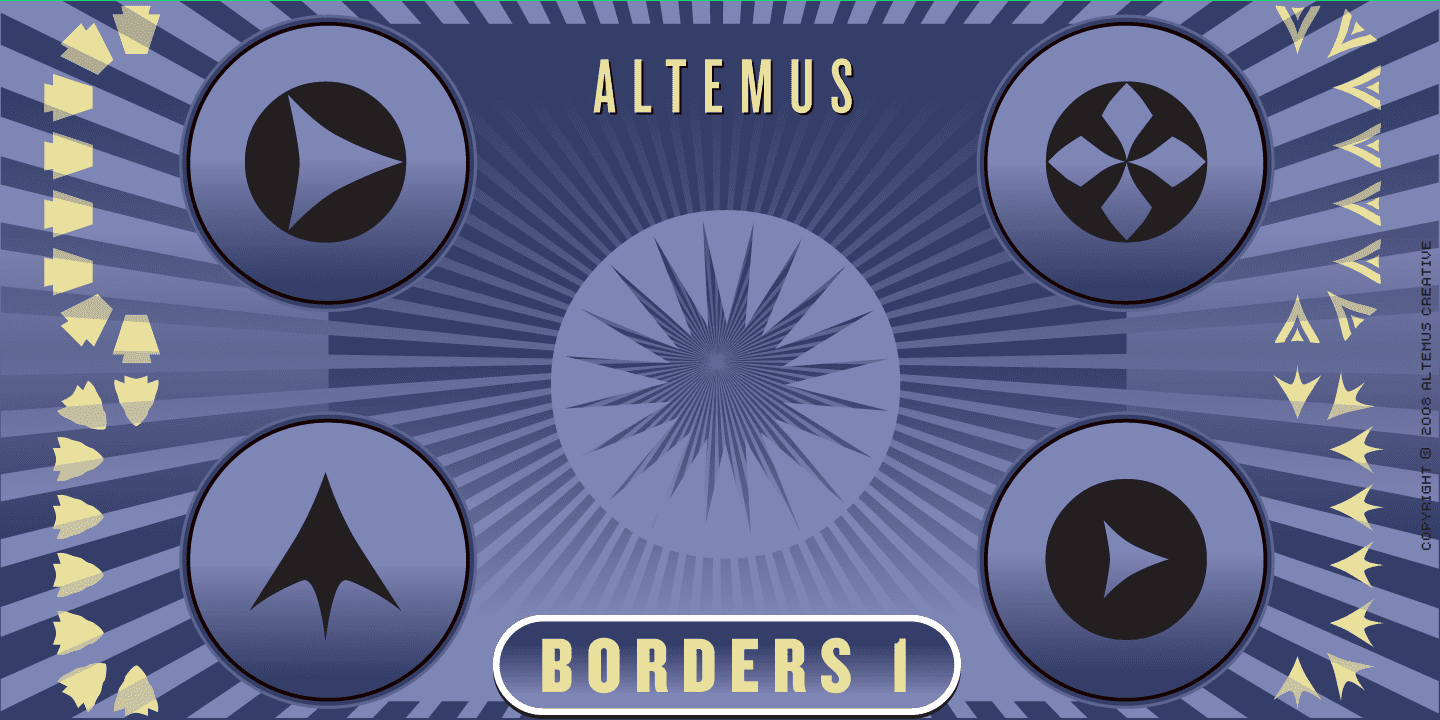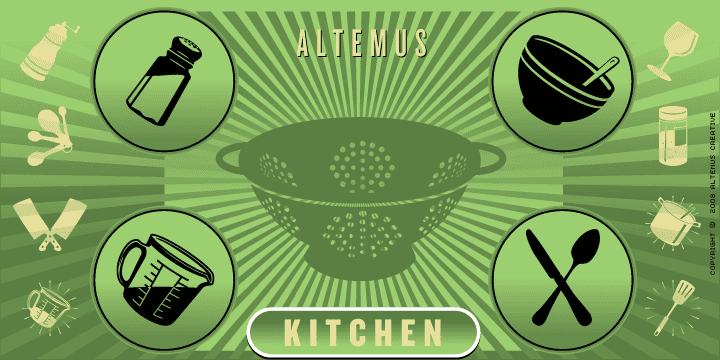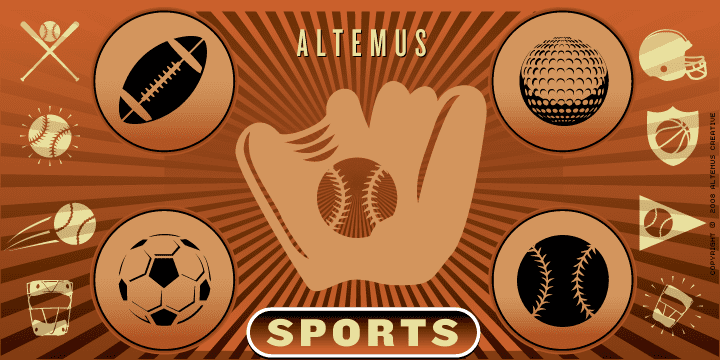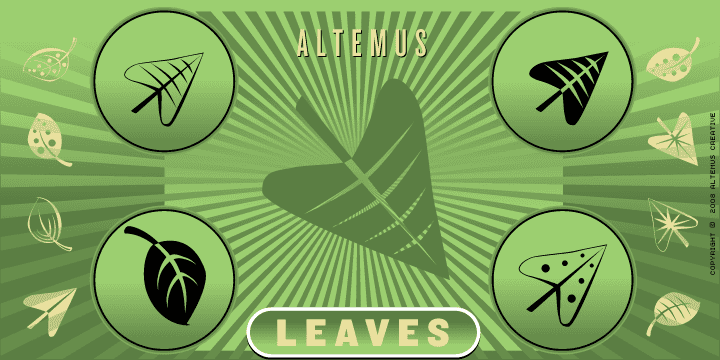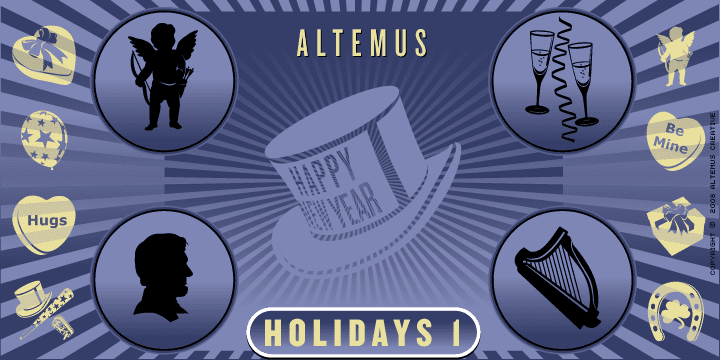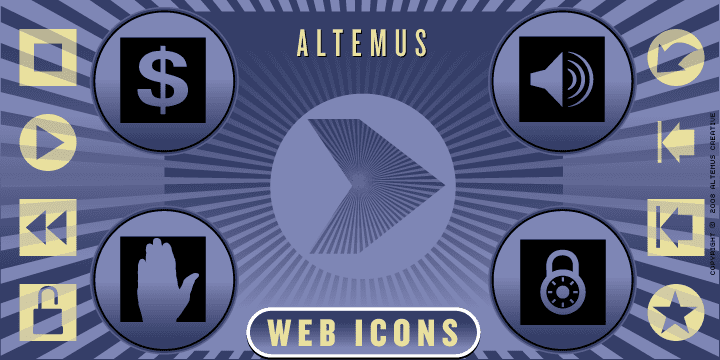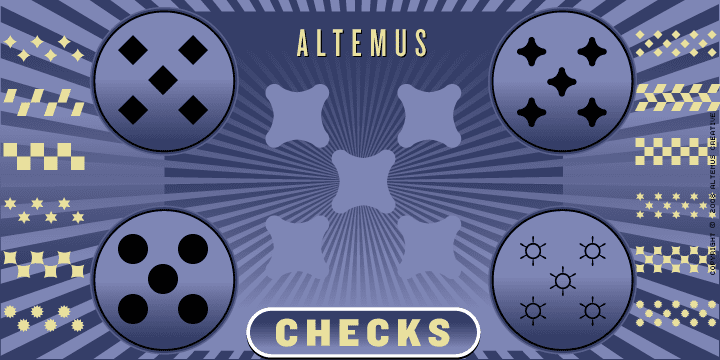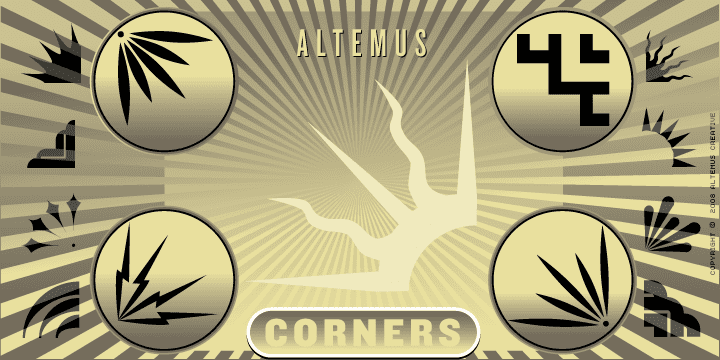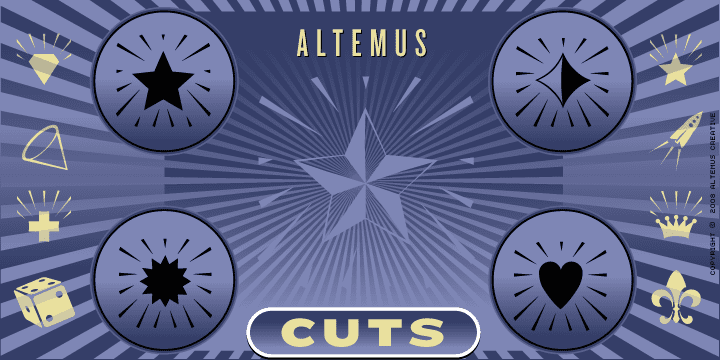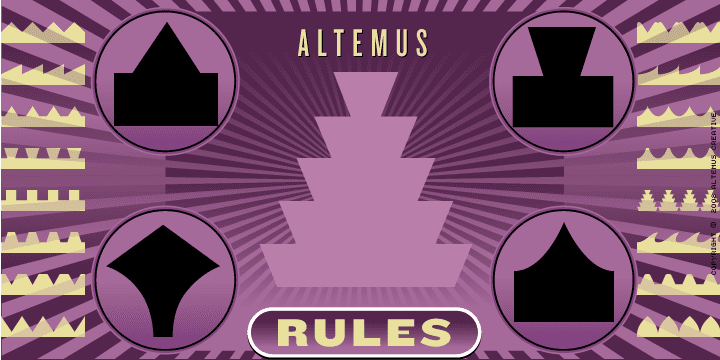
A DECADE OF RESEARCH
The Altemus Collection, from New York designer Robert Altemus, is not culled from other typographic sources and the designs are not merely auto-traced. This is a body of work spanning over ten years of image research, scavenging, compiling and drawings of elements from everywhere.
The character designs are all based on observation and exploration, and in most cases on quick thumbnails that capture the essence of the found designs. The rough sketches are then explored and developed. As the forms are drawn in vector format we try various weight and stylistic variations that usually yield a series of new designs.
VARIED SOURCES
The individual designs are derived from our vast graphic history, inspired by items as diverse as medieval heraldic emblems and 18th-century colonial Portuguese decorative elements. Many historical design movements became the basis for a variety of character designs; Babylonian symbols, Brazilian art deco architecture, Spanish art nouveau, Punk band posters, old printing cuts, American quilt designs and even 1950s American fabric designs.
Many other designs were included because of their traditional usage in printed materials. Flea markets were also scoured, observing the decorative elements used on old packaging and in period book and signage designs.